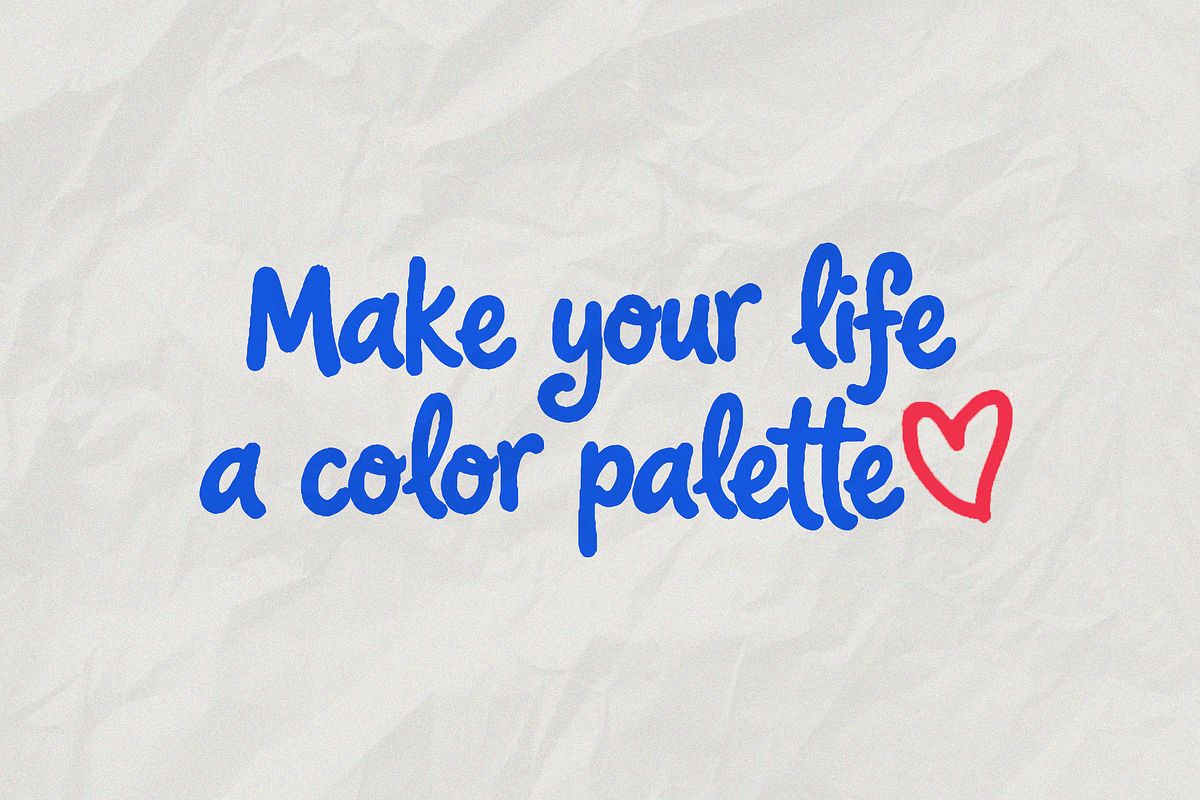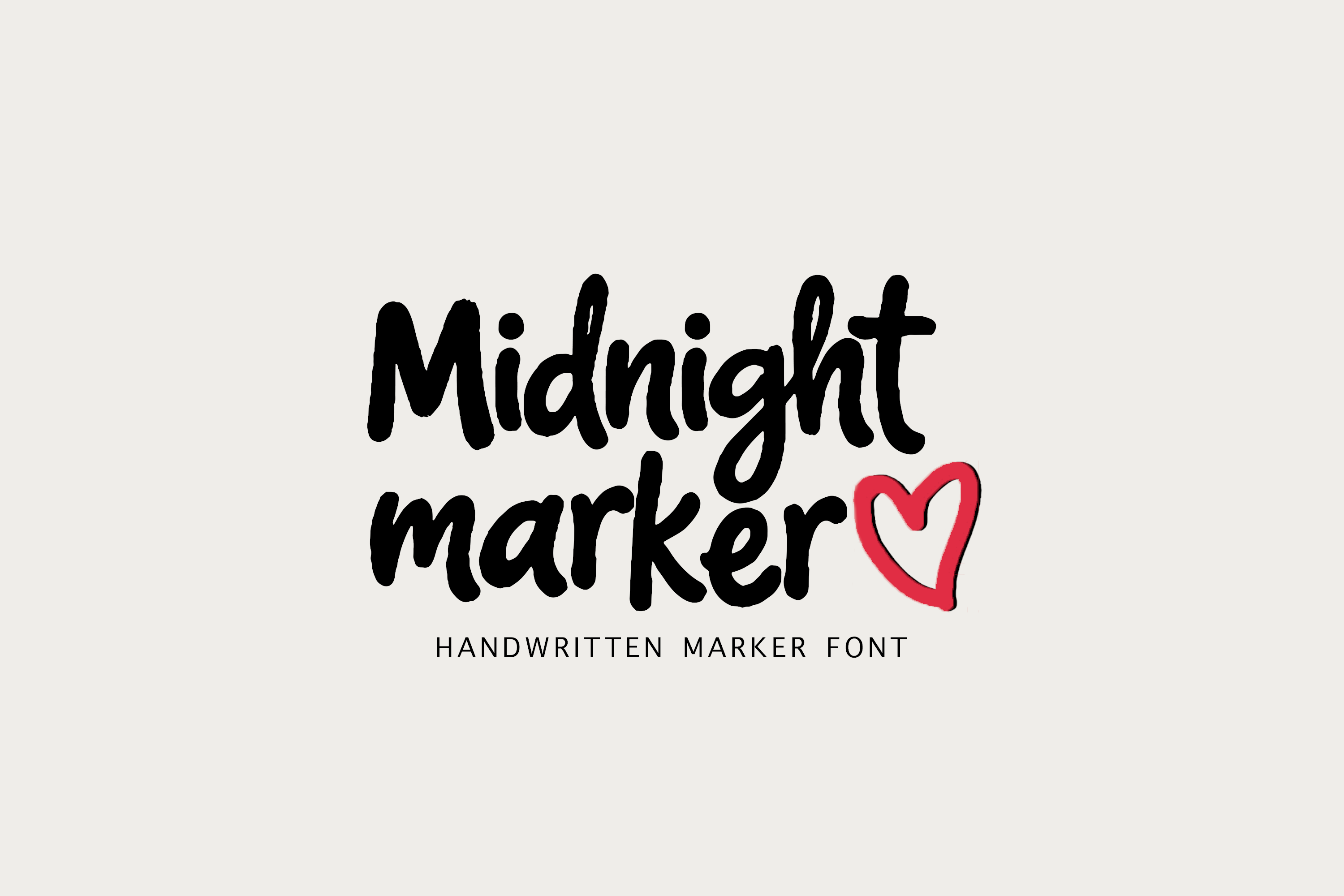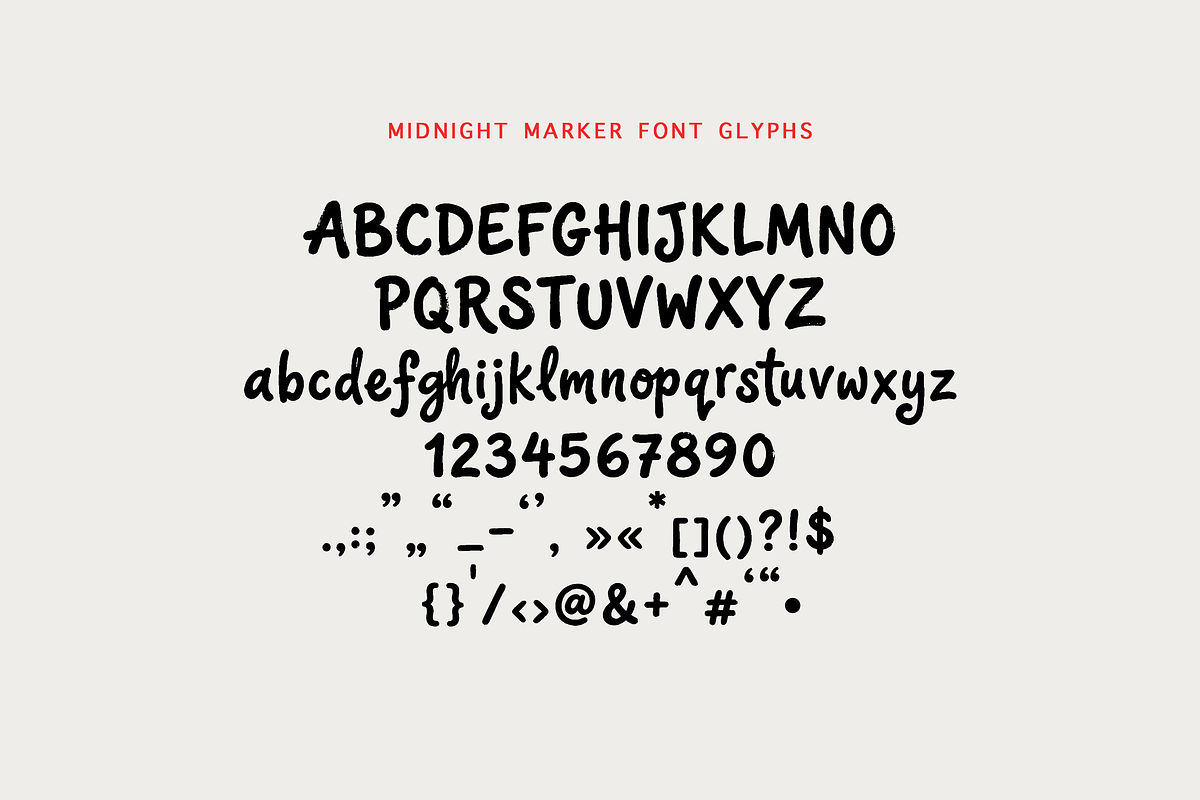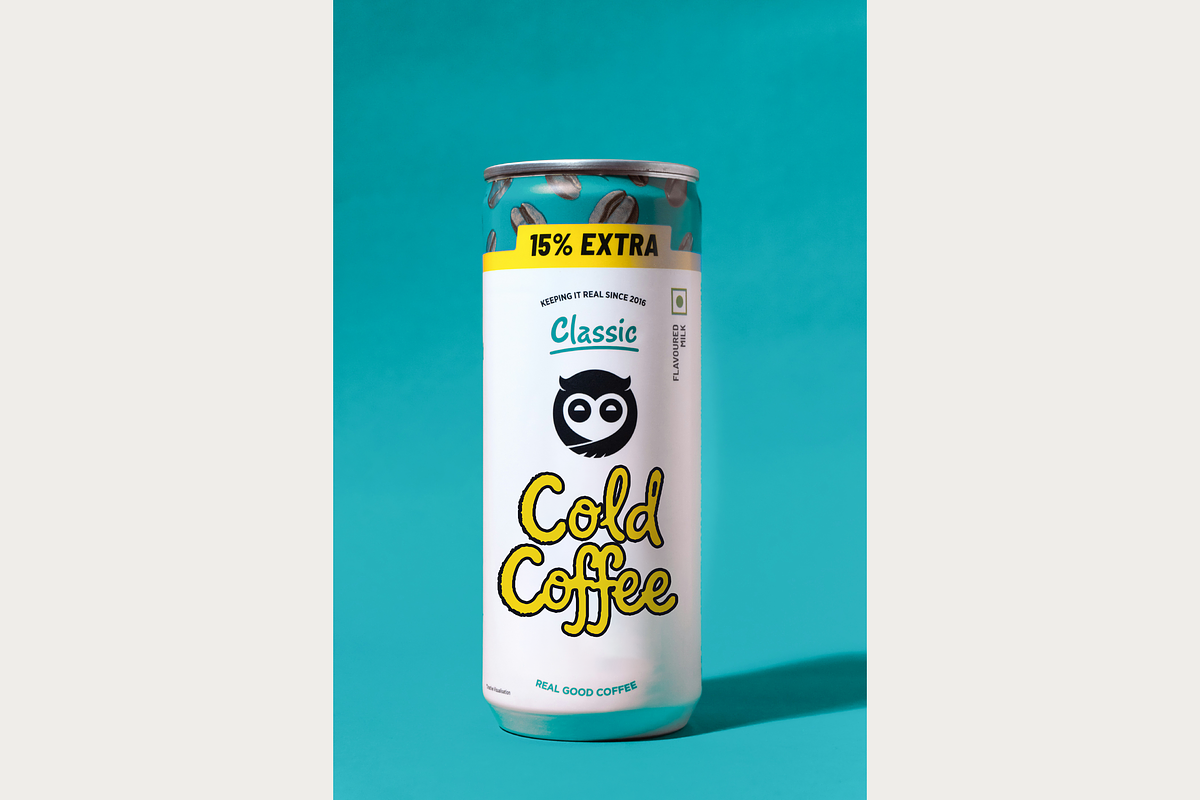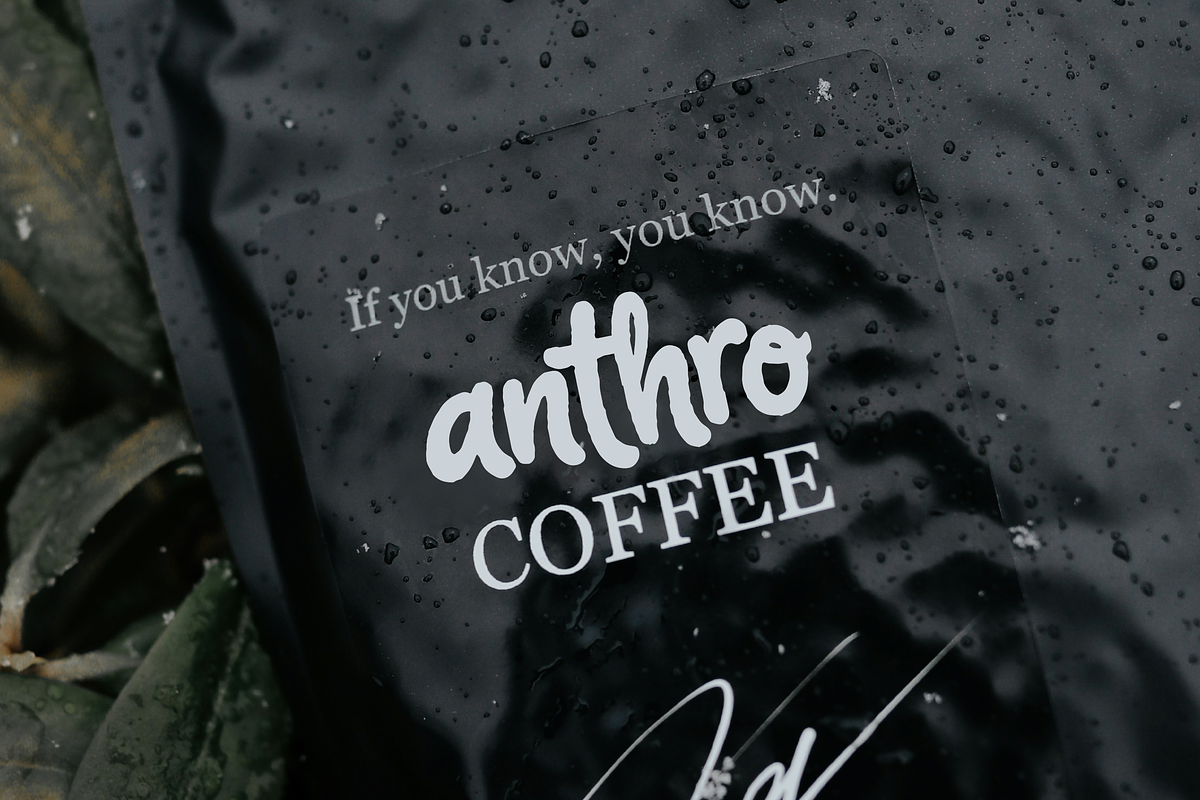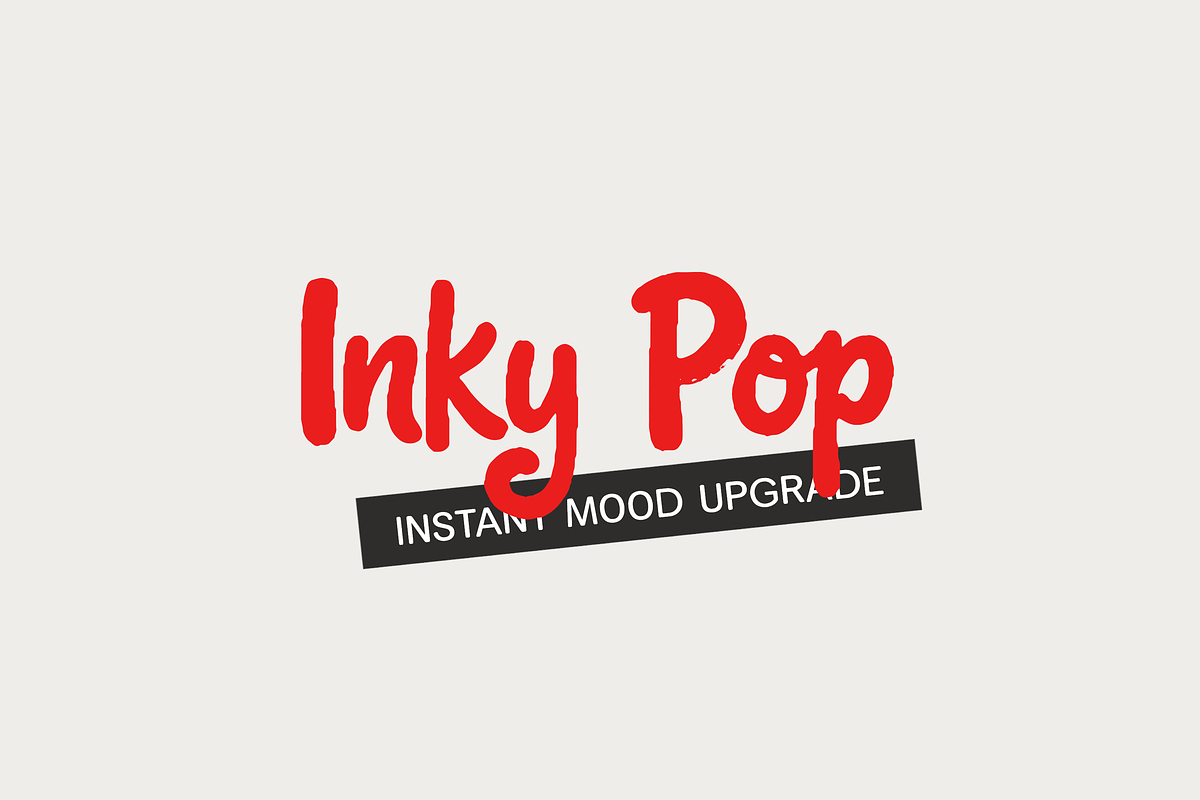
Midnight Marker | Handwritten Font
Midnight Marker is a bold handwritten marker font made to feel natural, playful, and full of personality. With thick, rounded strokes and an authentic marker texture, it’s perfect for eye-catching headlines and casual, modern designs.
- Quotes & posters
- Branding & logos
- Packaging & labels
- Social media graphics
- Stickers, cards & merch
Tip: Try adjusting the kerning (letter spacing) to set the mood—tighter spacing feels bold and punchy, while wider spacing looks lighter, airier, and more playful.